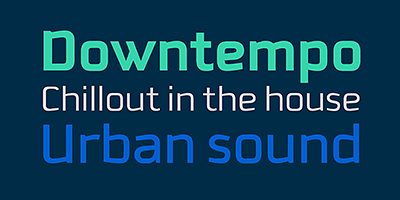
Downtempo Font
Downtempo Font is perfect for electronic music branding, chill-out lounge venues, ambient music festival posters, relaxing spa environments, meditation app interfaces, zen wellness centers, atmospheric cafe signage, and tranquil lifestyle brand graphics.
This font is exciting because it radiates laid-back sophistication with flowing letterforms that capture the hypnotic rhythm and atmospheric depth of downtempo electronic music and chill-out culture. Downtempo Font brings ambient elegance to designs through its relaxed structure and atmospheric styling that feels like typography flowing in slow motion and blessed with the peaceful energy of late-night listening sessions. The font's chill character makes it perfect for ambient brands and want to communicate relaxation, sophistication, and the kind of cool tranquility that creates perfect atmospheres for unwinding and finding inner peace.
The Downtempo Font family includes Regular, Bold, Light, Ambient, Chill, and Atmospheric variants, each designed to capture different moods of electronic relaxation while maintaining the font's characteristic laid-back appeal and atmospheric authenticity. The character set features flowing details that enhance the font's connection to downtempo music and chill-out culture.
Whether you're creating branding for ambient entertainment venues, designing materials for relaxation experiences, or developing content that needs to project atmospheric calm, Downtempo Font Free Download delivers the sophisticated typography that creates perfect ambient environments where minds can relax and souls can find the peaceful rhythm that modern life often disrupts. This remarkable typeface transforms text into atmospheric soundscapes that resonate with the same hypnotic calm and sophisticated tranquility found in the finest downtempo music, ensuring your message communicates the peaceful sophistication and ambient beauty that defines brands committed to creating spaces where people can escape the chaos and discover the beautiful calm that exists within perfectly curated atmospheric experiences.